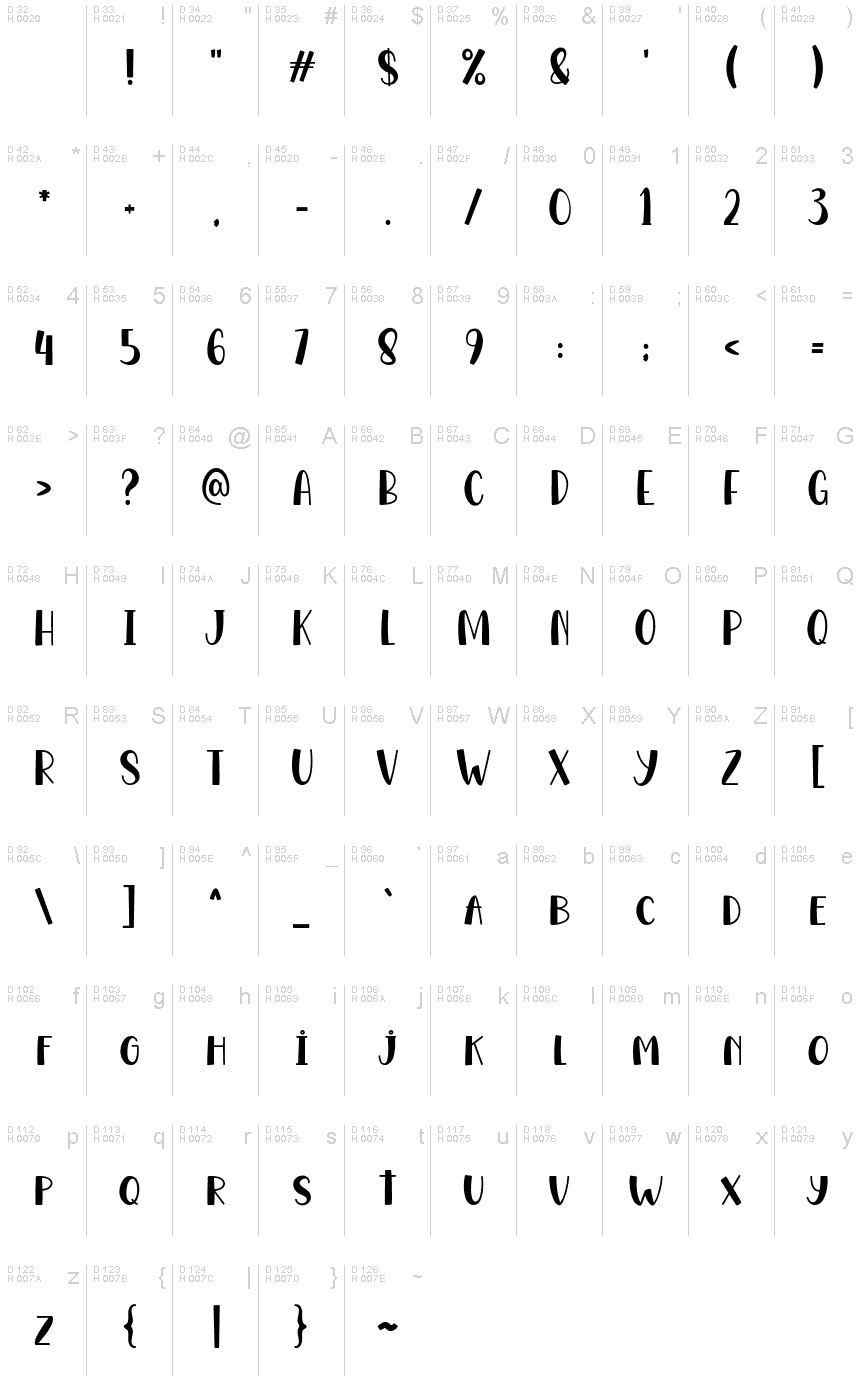
Monday Fiesta
Monday Fiesta by Letter Art Studio is a fun and lively display font that is perfect for creative projects that are looking to add a little bit of whimsy to their design. With its semi-bold weight and semi-condensed width, this cartoon-style font is both eye-catching and easy to read. Use it for children's books, posters, packaging designs, or any other project that needs a touch of playfulness. Monday Fiesta will bring a sense of joy and energy to any design it's used in. Get ready for your Monday Fiesta with this fantastic font!